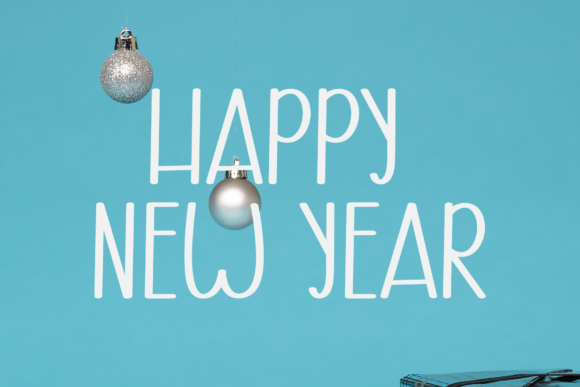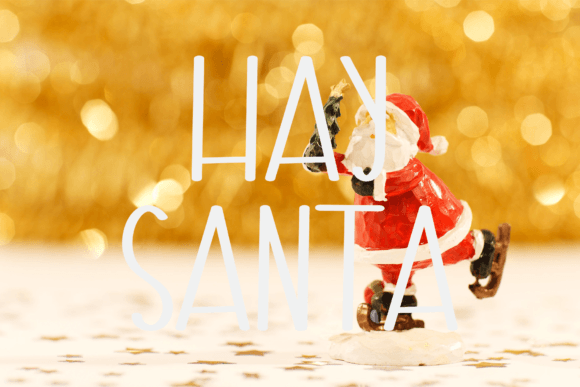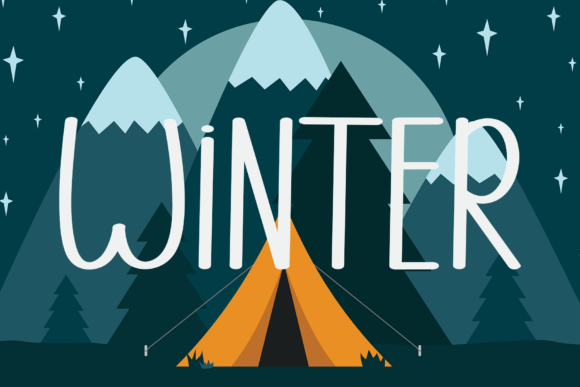
About Host Christmas Font Download
The Host Christmas Font Download is a simple and friendly handwritten script created to bring warmth and creativity to your projects. With its casual handwritten strokes and approachable personality, this typeface is suitable for both personal and professional use. Whether you are designing invitations, posters, or digital content, Host Christmas adds charm and joy to your work.
A Handwritten Script with Festive Spirit
The Host Christmas script font blends casual handwritten strokes with a modern balance. As a result, it feels approachable, stylish, and highly versatile. Furthermore, it works beautifully in both small stationery projects and larger display designs, which makes it a flexible choice for creatives.
Handwritten fonts always add a personal and heartfelt touch. The Host Christmas Font is ideal for wedding invitations, thank you notes, holiday greetings, and birthday cards. Because of its handwritten warmth, each design feels polished and memorable. In addition, it ensures that your stationery projects create lasting impressions.
Branding and Logo Design with Host Christmas Font
Typography plays a vital role in brand identity. The Host Christmas handwritten font is excellent for boutique logos, product packaging, and promotional materials. Its friendly and simple handwritten character helps brands appear approachable while staying professional. Therefore, it is especially effective for lifestyle, holiday, and creative businesses.
Posters, Titles, and Creative Displays
The Host Christmas Font Download also shines in posters, banners, book covers, and magazines. It maintains clarity at all sizes while adding handwritten charm. Consequently, it is a dependable choice for designers seeking a mix of creativity and legibility.
In today’s digital-first environment, fonts must be versatile and engaging. The Host Christmas typeface integrates seamlessly into Instagram posts, YouTube thumbnails, Pinterest graphics, and blogs. Because of its warm handwritten style, it ensures digital projects look festive, fun, and inviting.
Why Designers Choose Host Christmas Typeface
Designers love fonts that combine personality with readability. The Host Christmas handwritten script maintains its casual and friendly energy while staying easy to read. This makes it a reliable option for both professionals and hobbyists. Moreover, its timeless handwritten form ensures it will remain trendy in years to come.
Add Festive Warmth to Your Projects Today
If you are looking for a handwritten script that feels simple, friendly, and versatile, the Host Christmas Font Download is the perfect choice. From invitations and cards to posters, branding, and social media, it enriches every design with festive handwritten beauty. Finally, download Host Christmas today and let your projects shine with charm and creativity.